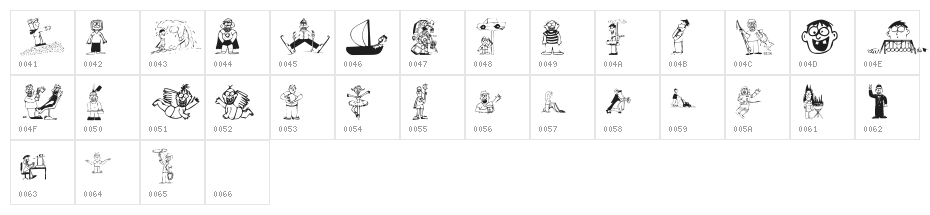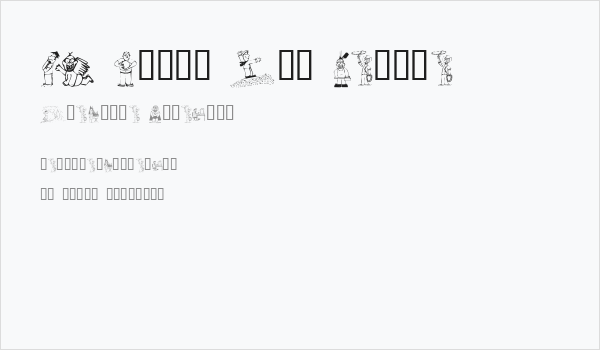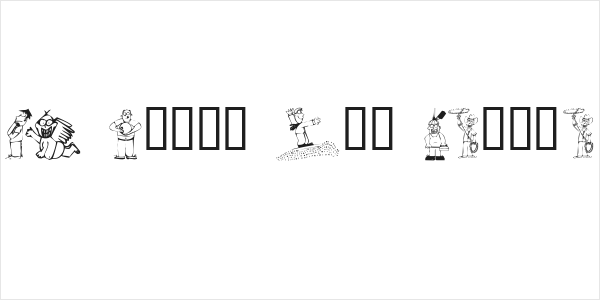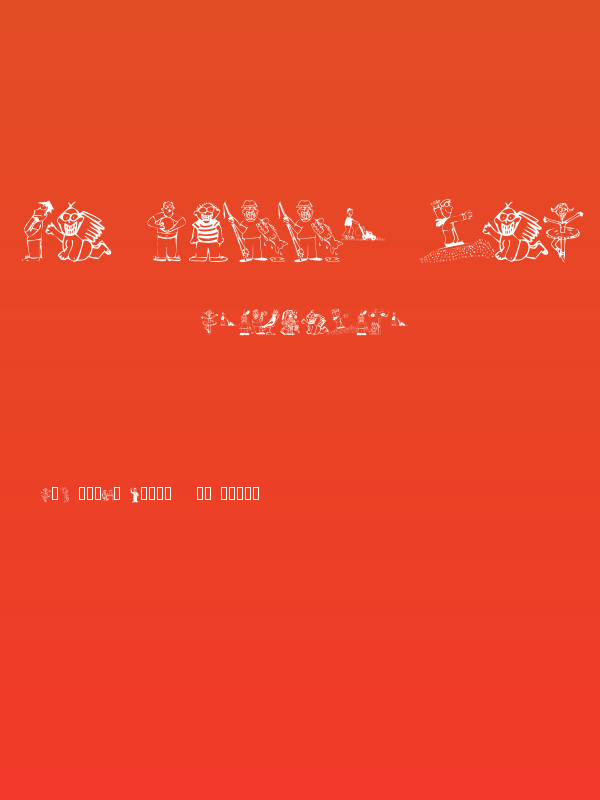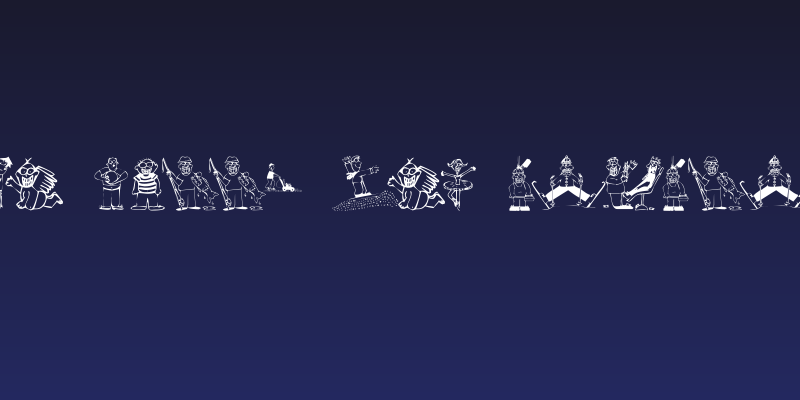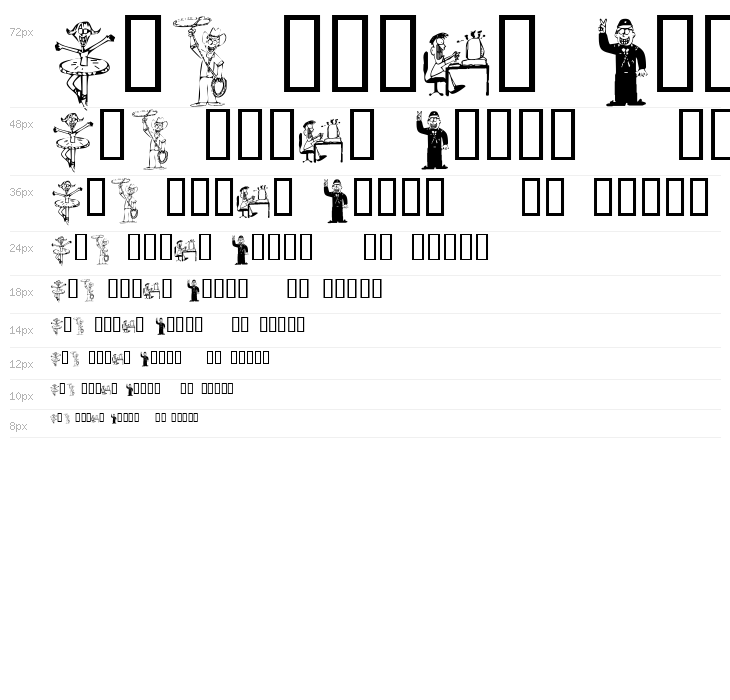
KR Silly Art People Font
| Overall Style | Playful, Whimsical, Cartoonish |
| Use Case | Decorative elements, Themed graphics, Illustrative projects |
| Proposed Projects | ChildrenΓ’β¬β’s books, party invitations, comic strips, playful branding, educational materials. |